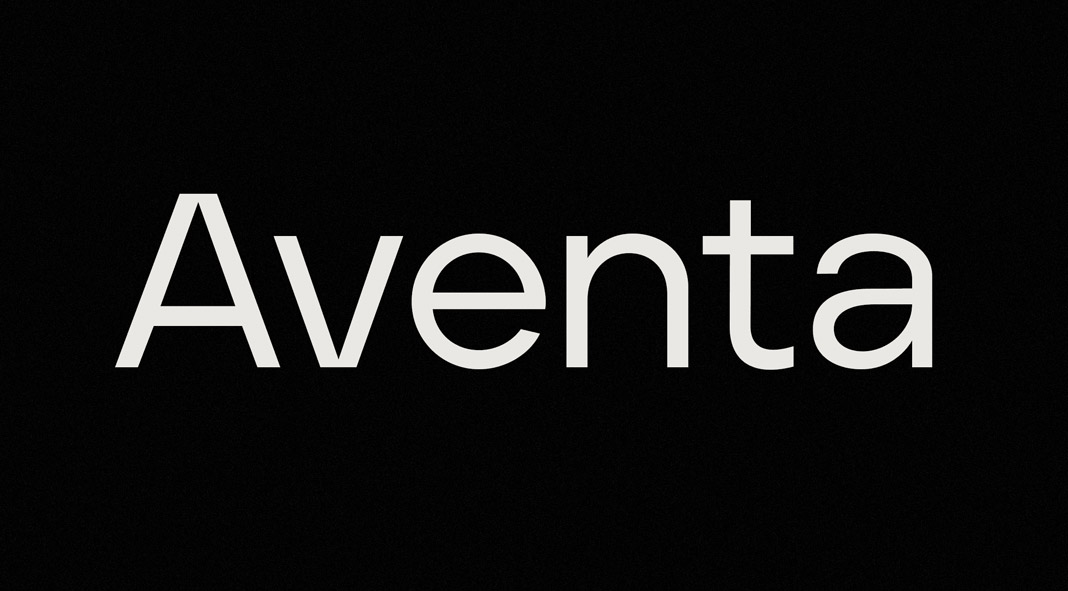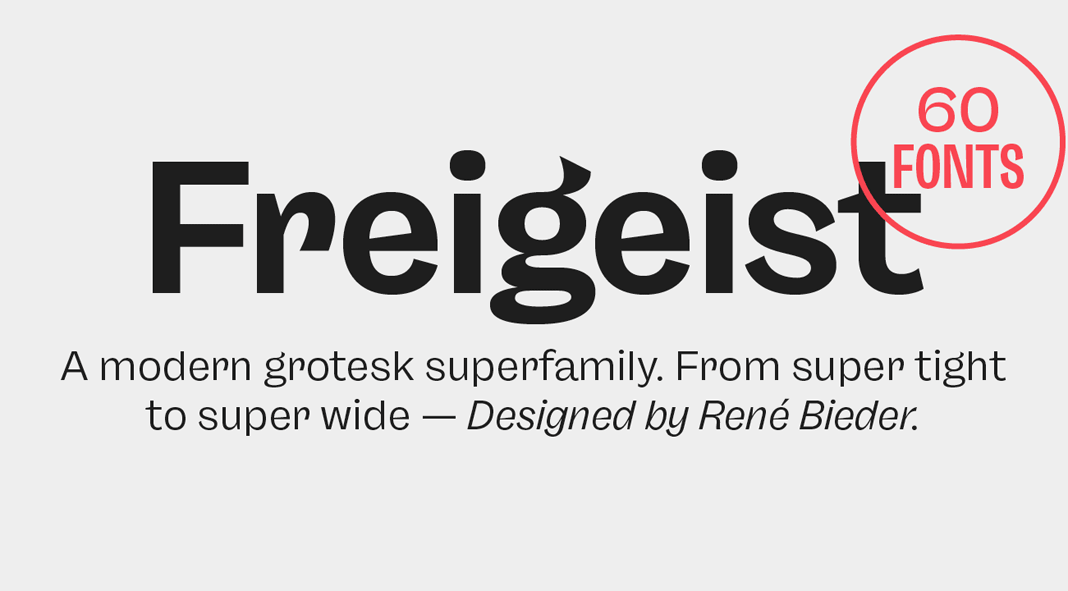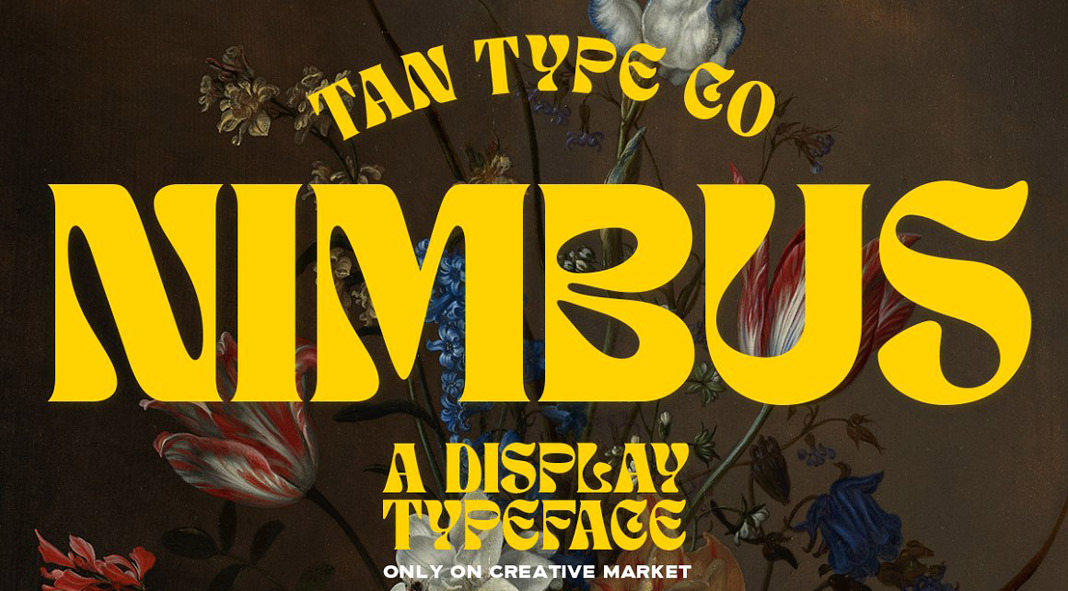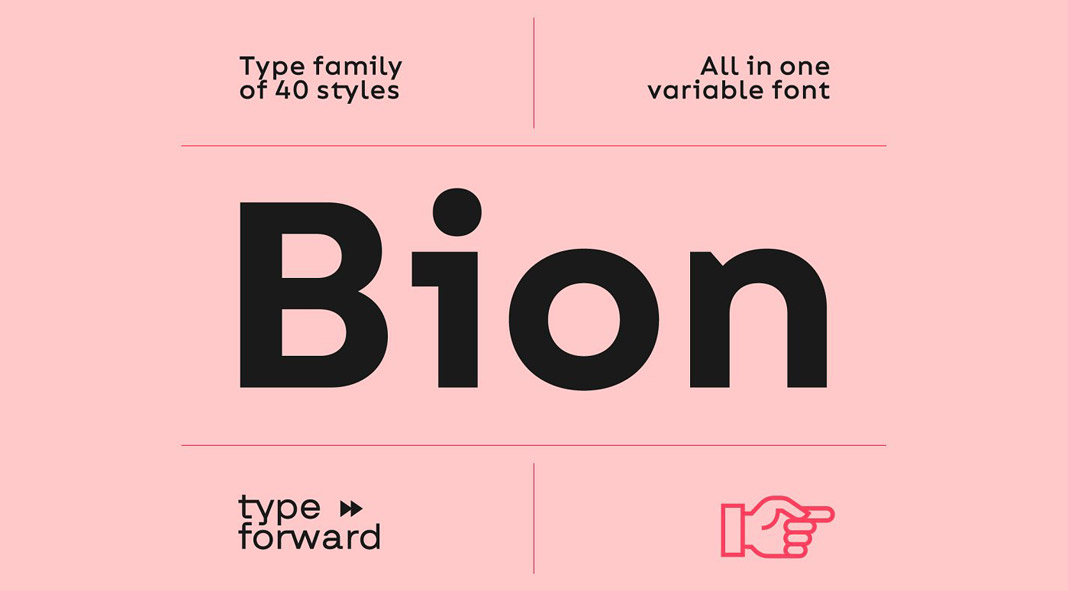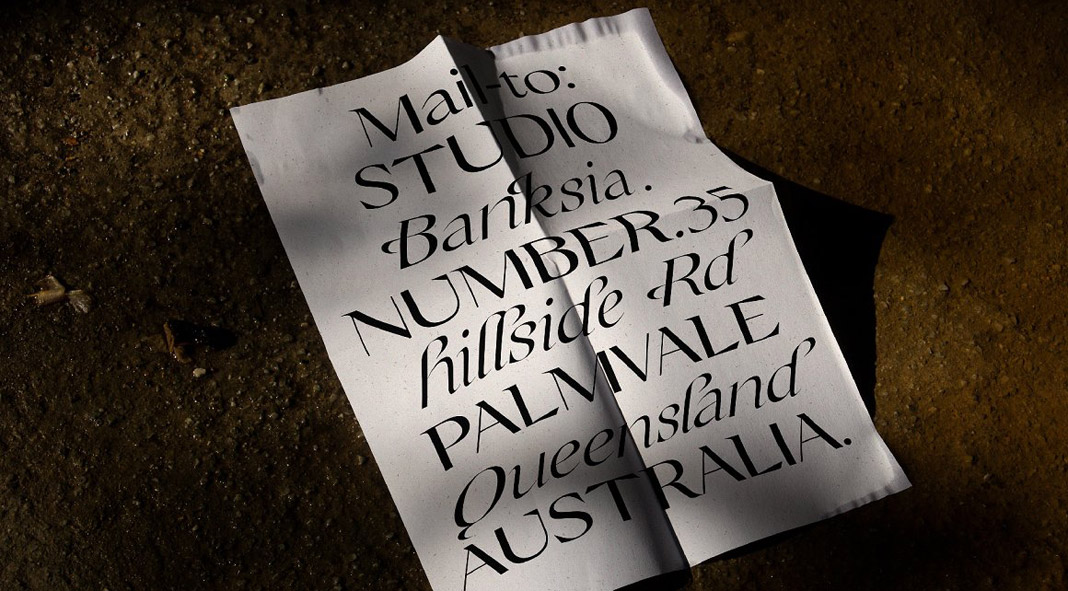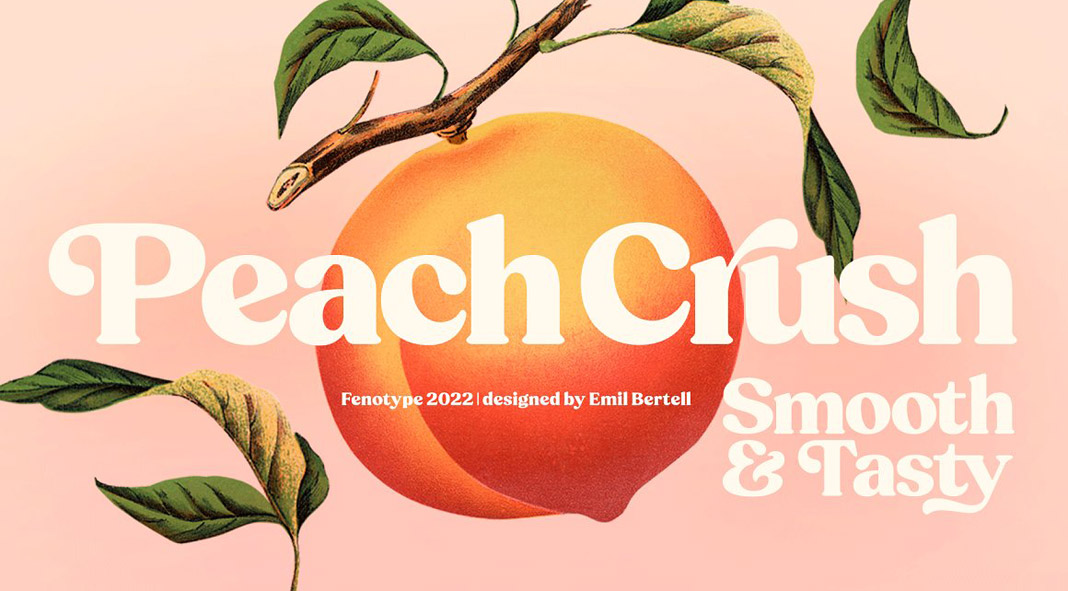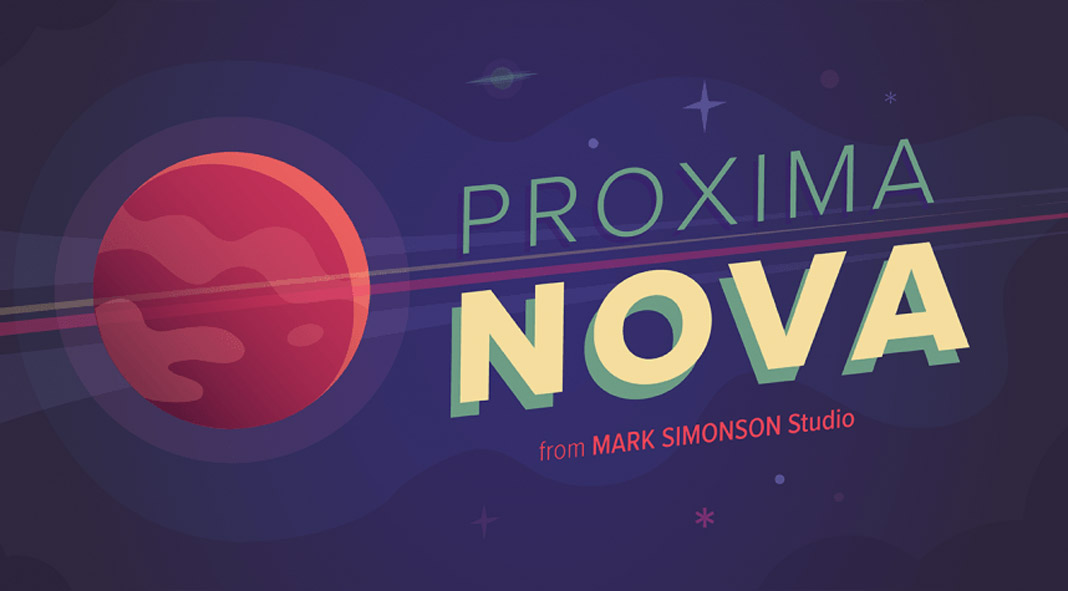
In 2023, these will be some of the best and most popular fonts that graphic designers keep coming back to.
Some trends remain popular for years, while others come and go very quickly. The world of typography is no different—there are always new fonts and typefaces being designed, based on current trends. Here at WE AND THE COLOR, we have put together a handpicked selection of the top ten best fonts for use in 2023. Some of our readers may already be familiar with some of the fonts from our reviews. Thank you very much for your feedback! It really helps us to know what’s popular at the moment and to predict what tomorrow’s trends in typeface design will be.
If you’re looking for the best fonts to use in 2023, look no further! Our selection includes both new and classic typefaces, all from world-renowned designers and font foundries.
10. TAN NIMBUS Font by TanType
Created by TanType, the TAN NIMBUS typeface is distinguished by its one-of-a-kind, decorative style. This design aesthetic was inspired by 1960s hippie culture as well as psychedelic motifs. The typeface supports multiple languages which makes it perfect for headlines, stylish text overlays, posters, clothing labels, packaging designs, branding, social media posts, and website headers, just to name a few.
9. Roc Grotesk Font Family by Kostic Type Foundry
The Roc Grotesk font family, designed and published by the Kostic Type Foundry, comes with 45 fonts in 9 weights and 5 widths. This extensive character set supports Western and Central European languages, as well as Turkish. The different widths (Compressed, Condensed, Normal, Wide, and ExtraWide) allow for the font to be used in various settings but primarily for display use.
8. Bion Font Family by Type Forward
Bion is a contemporary, geometric sans serif typeface with40 weights that range from Hairline to Black in a single variable font. In addition, it comes with variations including Upright, Italic, and Condensed which provide you the opportunity for creating titles for posters or books. No matter what you want to communicate, the Bion font family has got you covered—it supports 220 languages with 1,220 glyphs in total.
7. Eighties Comeback Font Family by Nicky Laatz
As the name suggests, the Eighties Comeback typeface draws inspiration from designs of the 1980s. It’s a serif font family that comes with 70 styles plus two variable fonts for those who have Adobe Photoshop, Illustrator, InDesign CC 2020, or higher. You can use it for a wide variety of typography projects, to add a lovely retro touch. The Eighties Comeback font family comes with 28 free bonus Photoshop styles that also work great in Canva.
6. TT Travels Next Font Family
The TT Travels Next font family is a great choice for both web and print projects. With its wide range of unique features, it is perfect for any design. The mix of soft and sharp shapes creates an eye-catching look. This unique sans-serif font comes with an exaggerated closed aperture and low contrast. The TT Travels Next font family is ideal for trendsetting print projects as well as contemporary web designs.
5. Champagne Cartel Font by Tropical Type
Created by Tropical Type, the Champagne Cartel font is a mixture of an edgy serif mixed with soft curves. The result is a bold yet stylish typeface, equipped with true italics—making it perfect for fashion branding and editorial design.
4. Proxima Nova Font Family by Mark Simonson
Type designer Mark Simonson created the Proxima Nova font family to fill the space between sans fonts like Futura and Akzidenz Grotesk. The result is an expansive font family that gives users contemporary proportions alongside geometric shapes. Originally released in 1994 as Proxima Sans, Simonson’s complete rework consists of 42 fonts across 7 weights in three widths (Regular, Condensed, Extra Condensed), all with matching italics. Not only does Proxima Nova work well for headlines, but its readability makes it great for body text too. In fact, it’s become one of the most popular web fonts because of this very reason.
3. Freigeist Font Family by René Bieder
The Freigeist font family has its roots in the bold, innovative typefaces of the 19th century. Caslon, Stephenson Blake, and other foundries paved the way for today’s contemporary fonts, and Freigeist captures that spirit perfectly. This multi-faceted family is suitable for a wide range of applications, styles, and settings.
2. Aventa Font Family by Ellen Luff
Aventa is a new sans-serif font family created in 2020 by Ellen Luff. Geometric in shape with 20 styles ranging from different weights, alternative characters, and matching Italics, this typeface was designed to have a modern feel while retaining the simplicity and elegance of classic fonts. With high X-height and strong capitals, Aventa is an attention-grabbing choice for any project. Not only does Aventa improve readability, but it also supports a wide range of characters for different languages. Because of this versatility, Aventa is perfect for both print and web design projects.
1. Peach Crush Font by Fenotype
Emil Bertell of foundry Fenotype designed Peach Crush, a beautiful vintage-style serif font with soft features that evoke feelings of warmth and nostalgia. The typeface includes Contextual, Swash, Stylistic, and Titling alternates as well as Discretionary Ligatures and even more alternates. All these features can be accessed by OpenType controls or straight from the Character or Glyphs window. You’ll find Swash Alternatives for certain Standard and Discretionary Ligatures included too. Use Peach Crush for a contemporary look with a touch of warmth in your design. This typeface is perfect for logos, packaging, restaurant graphics, or any other display use. Or if you prefer, integrate it into headlines or shorter texts.